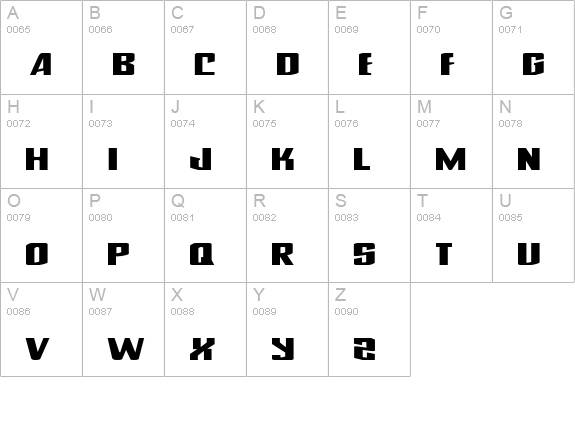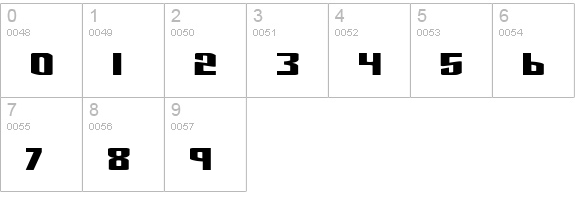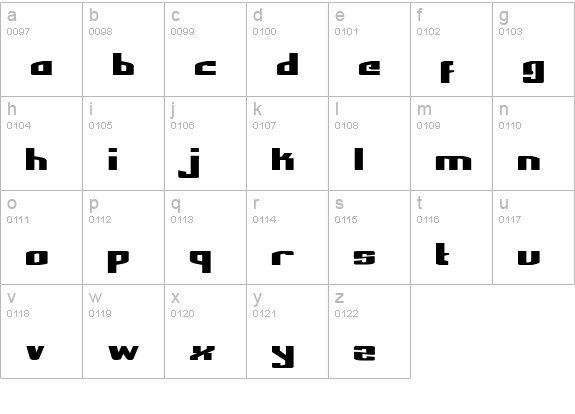
National Express Expanded is a distinctive, extended-width variant in the National typeface family \xE2\x80\x94 well suited to design and typography projects.
National Express Expanded font is a modern and versatile typeface that combines elegance with readability. Its sleek and clean design makes it perfect for a wide range of applications, from branding to editorial design. The expanded version of the font offers an extra touch of sophistication, making it ideal for headlines, posters, and other display purposes. What sets National Express Expanded apart is its seamless integration of classic and contemporary elements, resulting in a timeless aesthetic that will never go out of style. The font's generous spacing and elongated letterforms create a sense of movement and fluidity, drawing the reader's eye effortlessly across the page. Best of all, National Express Expanded is available for free download at FontsMarket.com. Whether you're a designer looking to elevate your projects or a typographer seeking a fresh addition to your collection, this font is a must-have. Embrace the beauty and versatility of National Express Expanded and take your designs to the next level.